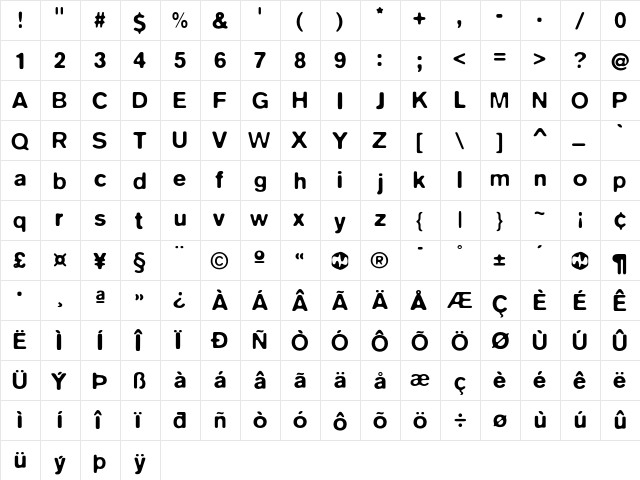
BlurMedium Regular Font Preview
BlurMedium Regular
Design Context for BlurMedium Typeface
BlurMedium takes a measured approach to typography — its balanced proportions and neutral character make it a reliable workhorse for both digital and print work.